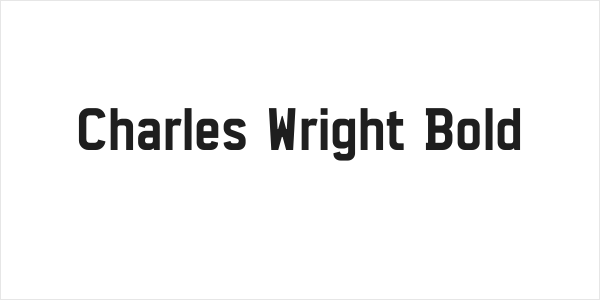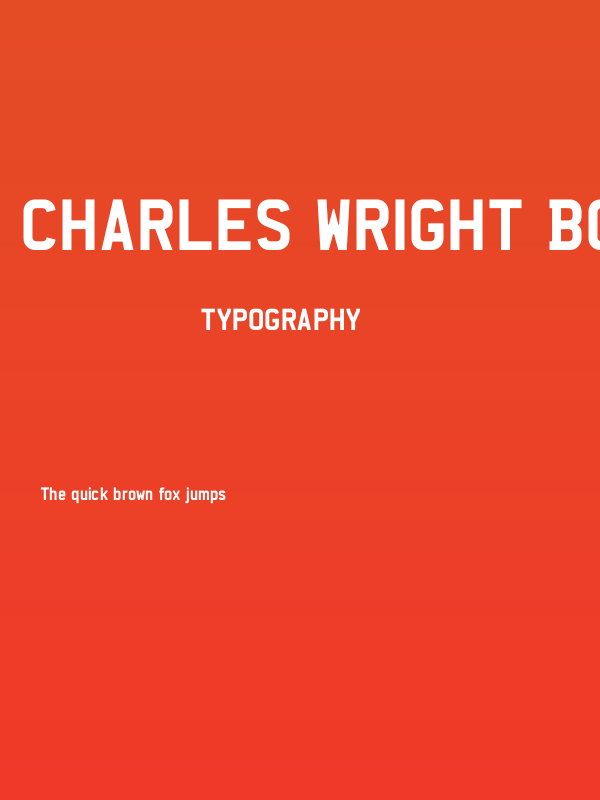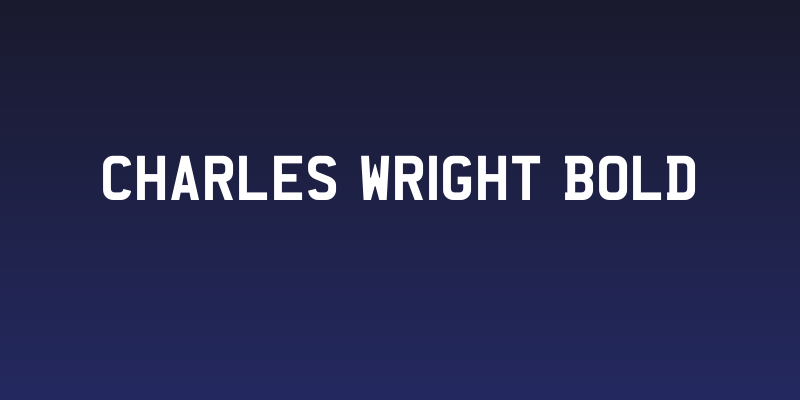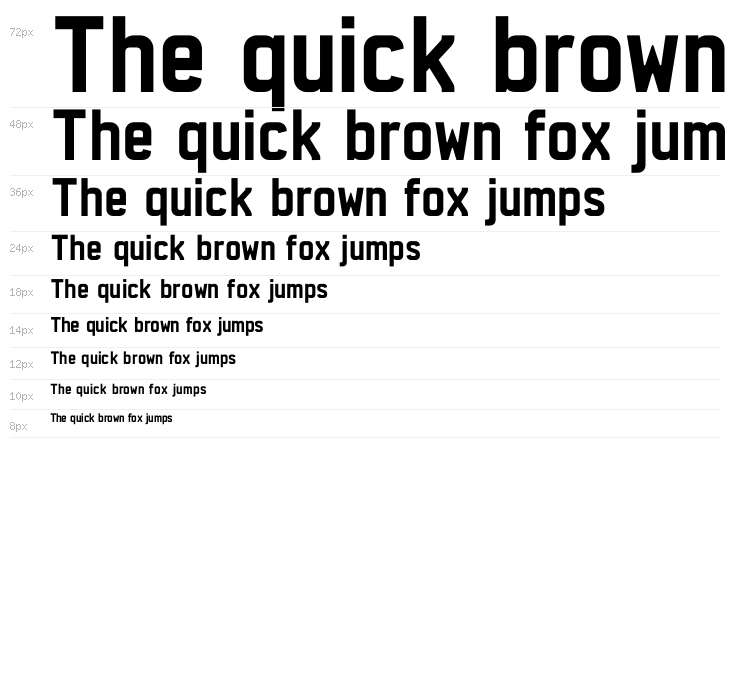
Charles Wright Bold Font
Charles Wright Bold Description
This font features a bold and robust design, characterized by its strong geometric shapes and clean lines. The uppercase letters are uniform in height, providing a sense of balance and stability. The lowercase letters maintain a consistent style, with rounded edges that soften the overall appearance. Numerals are clear and easily distinguishable, making them suitable for various applications. The special characters are well-integrated, maintaining the font's cohesive look. This typeface is versatile, offering a modern and professional aesthetic that is ideal for both digital and print media.
| Use Case | Headlines, Logos, Signage |
| Proposed Projects | Ideal for branding, signage, headlines, and digital media projects. |